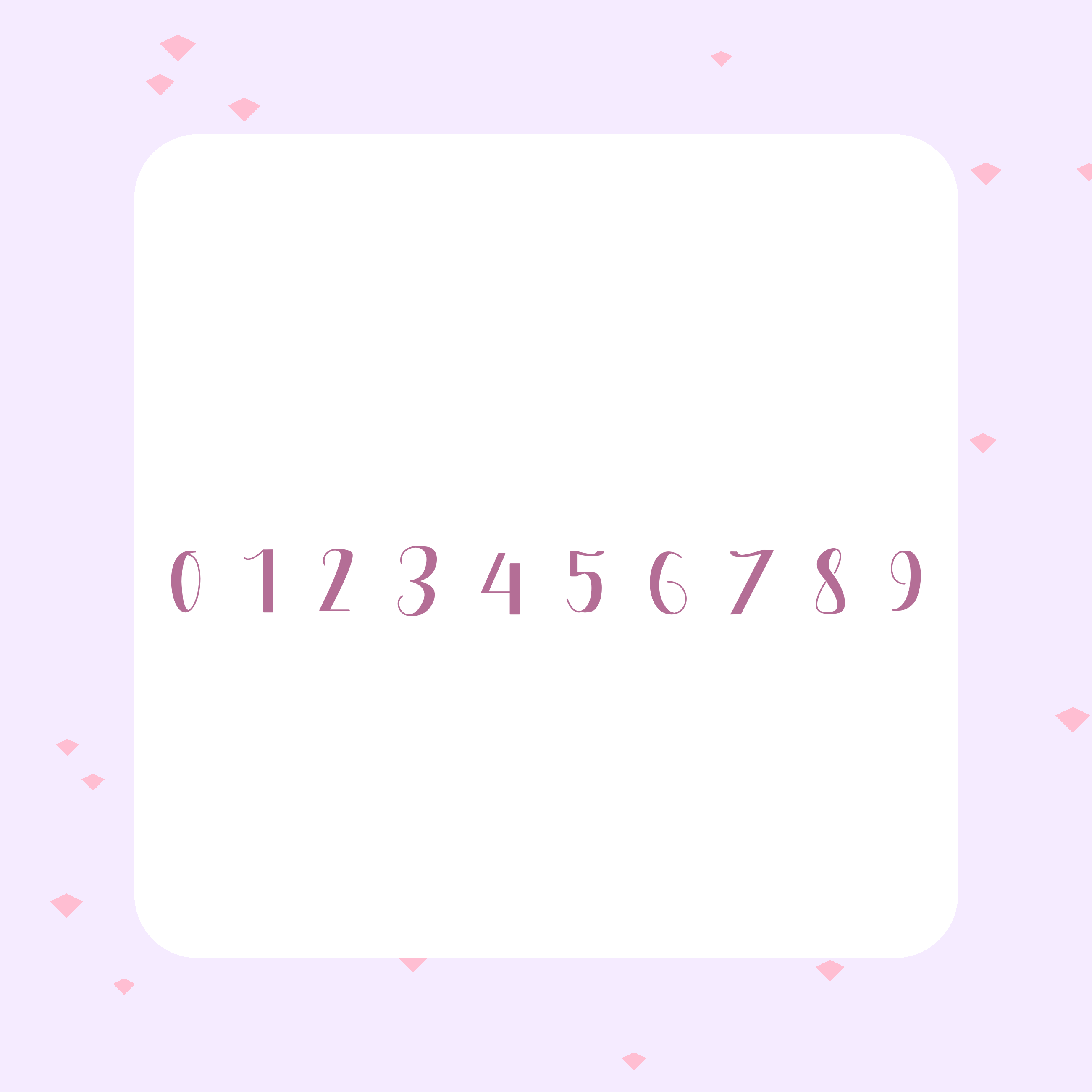
Meet Julya, the elegant handwritten font that brings romantic charm to every creative project. This beautiful feminine script font is designed for crafters, small business owners, and designers who want to add a touch of sophistication and personality to their work. Whether you’re creating vinyl decals, personalized gifts, or branded merchandise, Julya delivers the perfect balance of elegance and playfulness.
Why Choose a Feminine Script Font for Your Projects?
Handwritten fonts have a unique power—they humanize your designs and create an instant emotional connection with your audience. A feminine script font like Julya works beautifully for wedding invitations, greeting cards, packaging, social media graphics, and branding materials. Unlike rigid typefaces, script fonts tell a story. They whisper rather than shout, making them ideal for luxury brands, wellness products, lifestyle businesses, and anyone wanting to convey warmth and authenticity.
Julya’s flowing letterforms and romantic aesthetic make it perfect for Cricut users who want professional results without the learning curve. The font’s carefully crafted strokes ensure smooth cuts and stunning results on vinyl, cardstock, and fabric every single time.
Perfect for Romantic Branding & Cricut Crafts
This handwritten branding font excels across multiple applications. Create personalized monograms, design custom t-shirt transfers, craft beautiful wall art, or develop a cohesive brand identity that feels genuinely you. The script flows naturally, maintaining readability while delivering that coveted luxury look. Whether you’re a Cricut enthusiast, small shop owner, or professional designer, Julya adapts to your vision with ease.
The romantic aesthetic of this feminine script font makes it especially popular for lifestyle brands, beauty products, stationery design, and personalized gifts. Imagine custom wine glasses, monogrammed tote bags, or elegant thank-you cards—all elevated by Julya’s sophisticated letterforms.
Transform your creative vision into reality with Julya. This handwritten branding font combines elegance, versatility, and charming personality—everything you need to make your projects unforgettable.